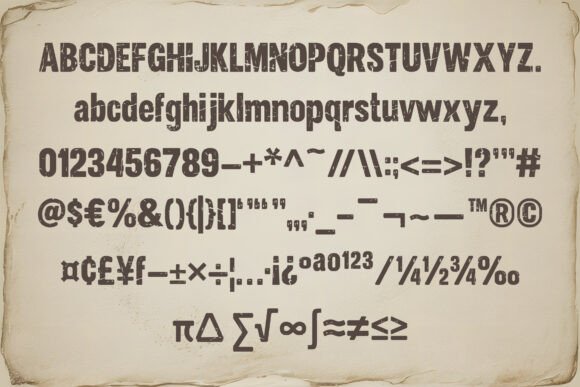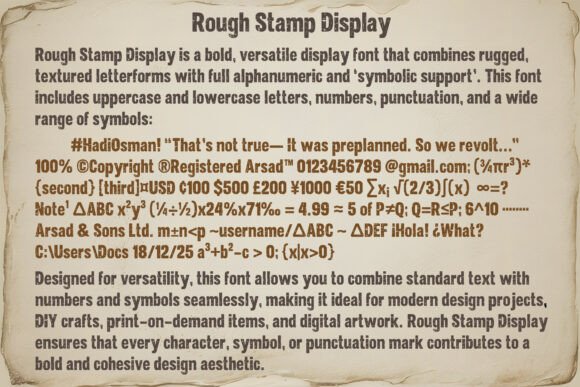
Introduction to Rough Stamp Display Font
Have you ever stared at a beautifully distressed wooden sign, wondering how it got that authentic, worn look? As designers, we often find ourselves searching for that perfect combination of vintage charm and modern style. One font that can instantly evoke that feeling is the Rough Stamp Display Font. This stunning typeface is a masterclass in rugged, tactile design, capturing the essence of vintage letterpress and hand-stamped ink with uncanny accuracy.
As designers, we know the value of a high-quality design resource that can elevate our creative projects. The Rough Stamp Display Font is a versatile and powerful tool that can add a touch of history, grit, and artisanal craftsmanship to any design. Whether you’re working on a free download project or a commercial campaign, this font is sure to impress with its intricate weathering details and transparent background.
With its natural distressing and uneven edges, the Rough Stamp Display Font is perfect for designers who want to add a sense of character and weight to their designs. Pair it with a clean sans-serif for a striking contrast, and watch your design come to life with a unique, hand-stamped look.
Key Features of Rough Stamp Display Font
- High-quality design suitable for various creative projects, including invitations, posters, and branding materials.
- Transparent background allows for seamless integration with any design element, providing flexibility for creative expression.
- Rough texture and distressed look make it perfect for adding a vintage or worn feel to your design project.
- Designed at a large size of 2048px, ensuring high-resolution quality for printing or digital use.
- Ideal design resource for designers, artists, and creatives working on various projects, including wedding invitations, event promotions, and product branding.
Honest Review: Rough Stamp Display Font
I recently had the chance to experiment with the Rough Stamp Display Font, and I’m excited to share my honest thoughts on this design resource. With its free download and high quality, this font is a great addition to any creative project.
What works well is the unique texture and distressed look that the Rough Stamp Display Font offers. The transparent background allows for easy integration into various design settings, making it a versatile choice for designers. ✨ The font also comes in a variety of styles, making it easy to find the perfect fit for your project.
However, I did encounter some limitations with the font. The Rough Stamp Display Font can be quite heavy, and it may not be the best choice for smaller text sizes. ⚠️ Additionally, the font may not be suitable for projects that require a more polished or professional look.
Overall, I was impressed with the Rough Stamp Display Font. While it may have some limitations, its unique texture and high quality make it a valuable addition to any design resource collection.
Here are some key points to consider:
- Free download and high quality
- Unique texture and distressed look
- Available in various styles
- May be too heavy for smaller text sizes
- May not be suitable for polished or professional projects
Rough Stamp Display Font
The Rough Stamp Display Font is a unique and creative design resource that can add a touch of rugged charm to your projects. It’s available for free download and can be used in a variety of applications, from posters to social media graphics.
To get the most out of the Rough Stamp Display Font, experiment with different font sizes, colors, and combinations. You can also use it in conjunction with other design elements, such as images and graphics, to create a unique and eye-catching design.
The Rough Stamp Display Font is commonly used in creative projects, such as posters, flyers, and social media graphics. It’s also a great choice for designers looking for a high-quality, free font that can add a touch of personality to their designs.